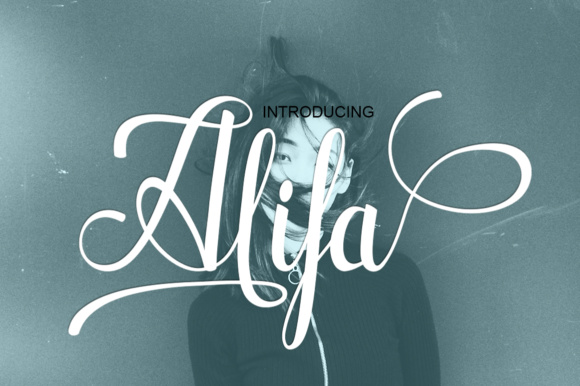
Introducing Alifa Font, a masterfully crafted script typeface that will transform your designs into works of art. It's a font that captivates the essence of elegance and sophistication with a touch of playfulness.
Journey into a world of swirling lines and graceful curves as Alifa Font dances across your digital canvas. Its decorative characters add a touch of charm and whimsy, while its dancing baseline infuses a sense of dynamism into your creations.
With Alifa Font, you'll find a treasure trove of possibilities. Whether it's invitations, greeting cards, or branding materials, this font adds a touch of exclusivity and artistry. Its versatile nature makes it the perfect choice for a diverse range of projects.
Imagine your wedding invitations adorned with Alifa Font's delicate strokes, creating an ambiance of timeless romance. Envision your greeting cards exuding warmth and cheer, thanks to the font's charming personality. And picture your branding materials radiating professionalism and creativity, leaving a lasting impression on your clients.
Alifa Font is more than just a font; it's a creative companion that fuels your imagination and breathes life into your designs. Its beauty captivates, its elegance enchants, and its versatility knows no bounds.
So, embark on this creative adventure with Alifa Font and witness the transformation of your designs. Let your imagination soar, and let Alifa Font be your guide as you create masterpieces that leave an indelible mark on the world of design.